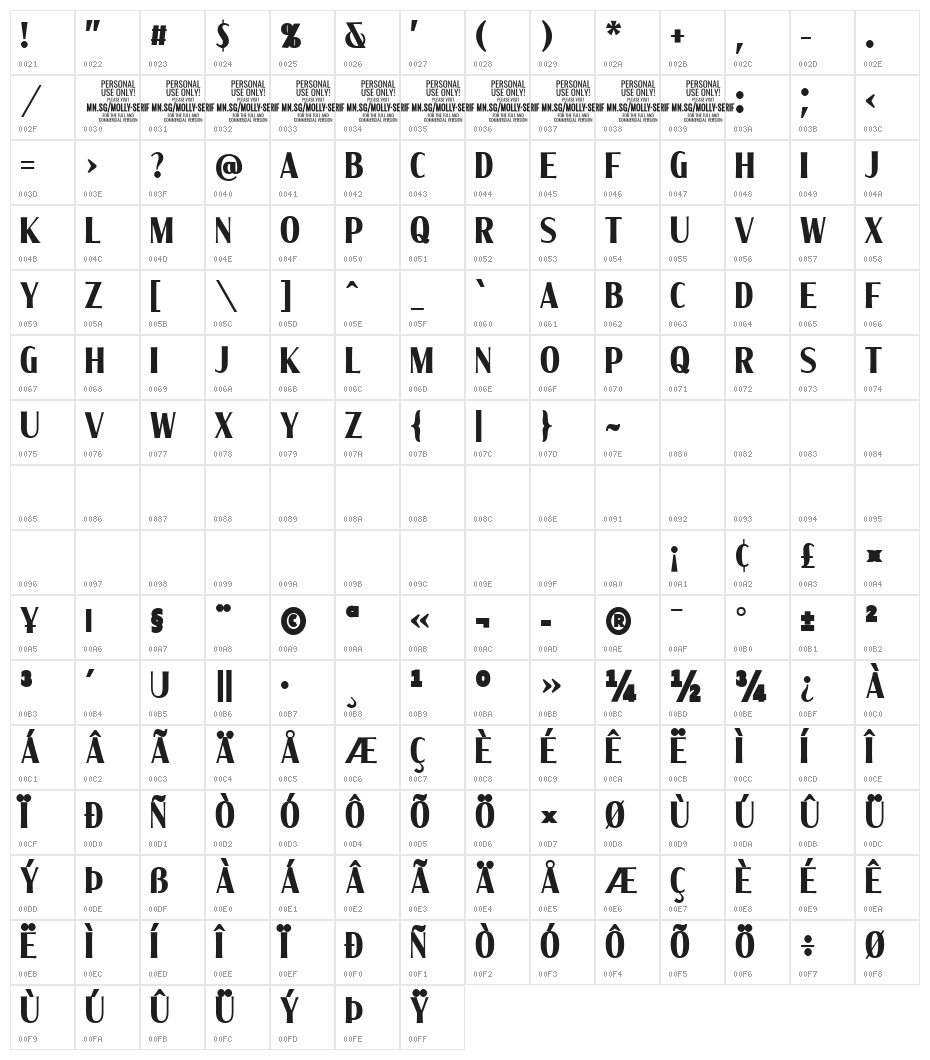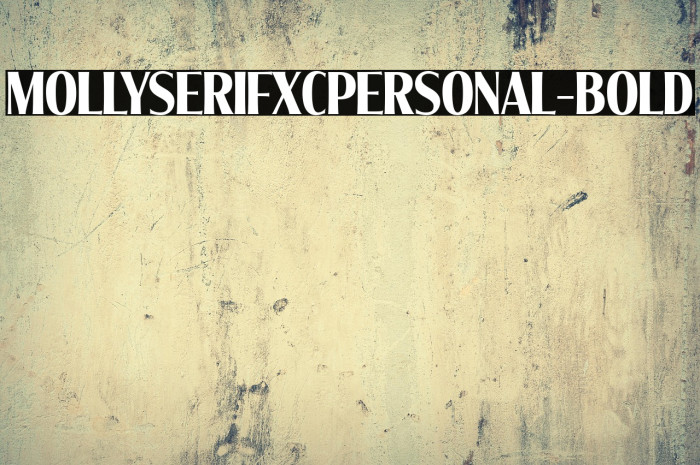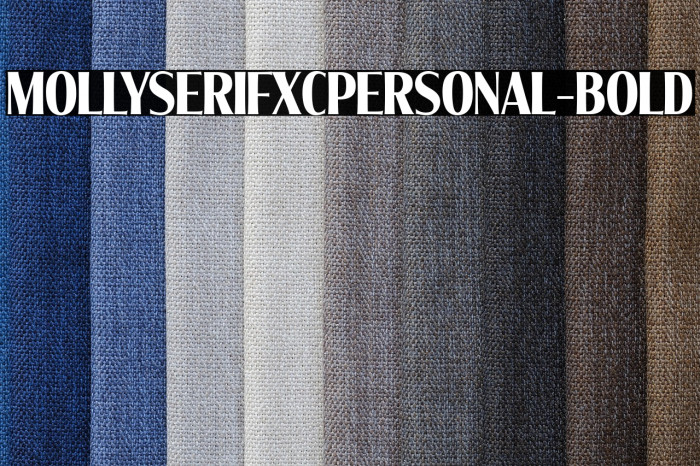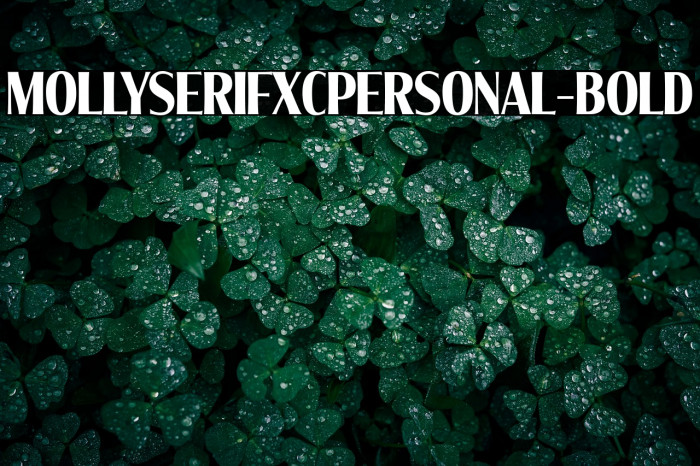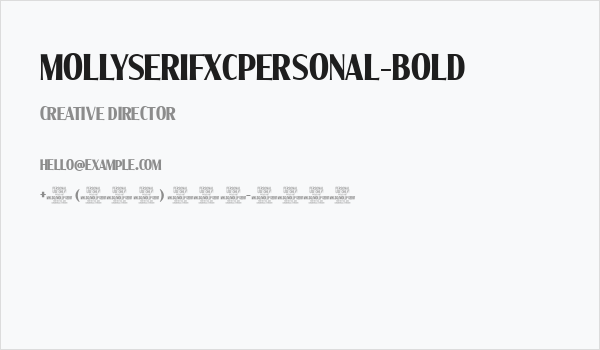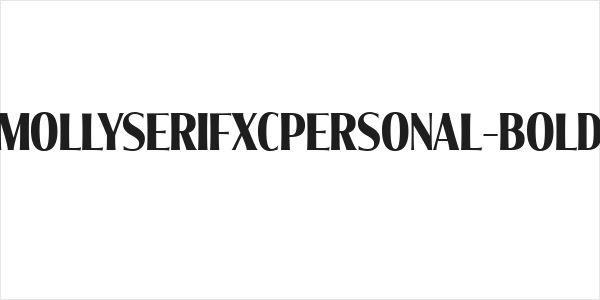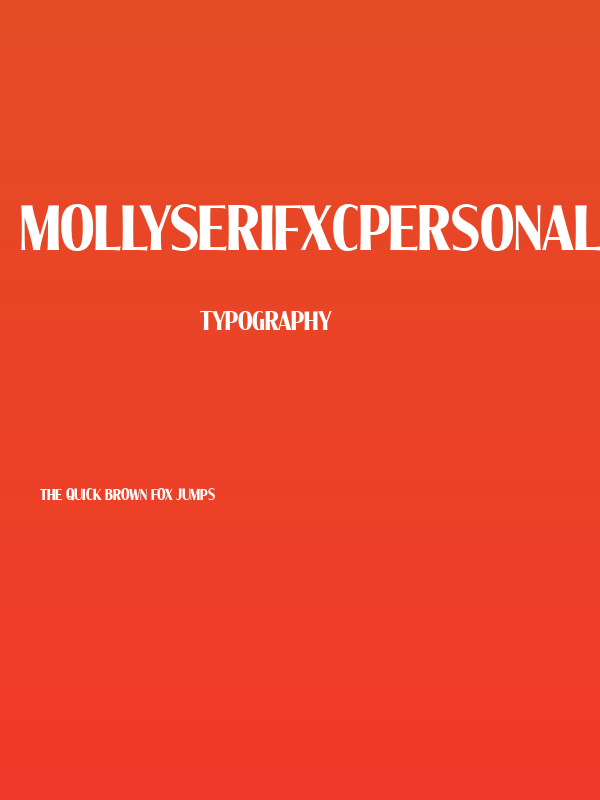
MollySerifXCPERSONAL-Bold Font
MollySerifXCPERSONAL-Bold Description
This font features a bold and striking serif style with high contrast between thick and thin strokes, giving it a dramatic and elegant appearance. The characters are designed with a slight curvature, adding a touch of sophistication and fluidity. The uppercase letters are particularly prominent, making them ideal for attention-grabbing headlines. The lowercase letters maintain the same boldness, ensuring consistency across different text sizes. The numerals and special characters are crafted with the same attention to detail, providing a cohesive look throughout. This font is perfect for projects that require a strong visual impact.
| Proposed Projects | Ideal for branding, editorial design, posters, and advertising where a strong, elegant presence is needed. |